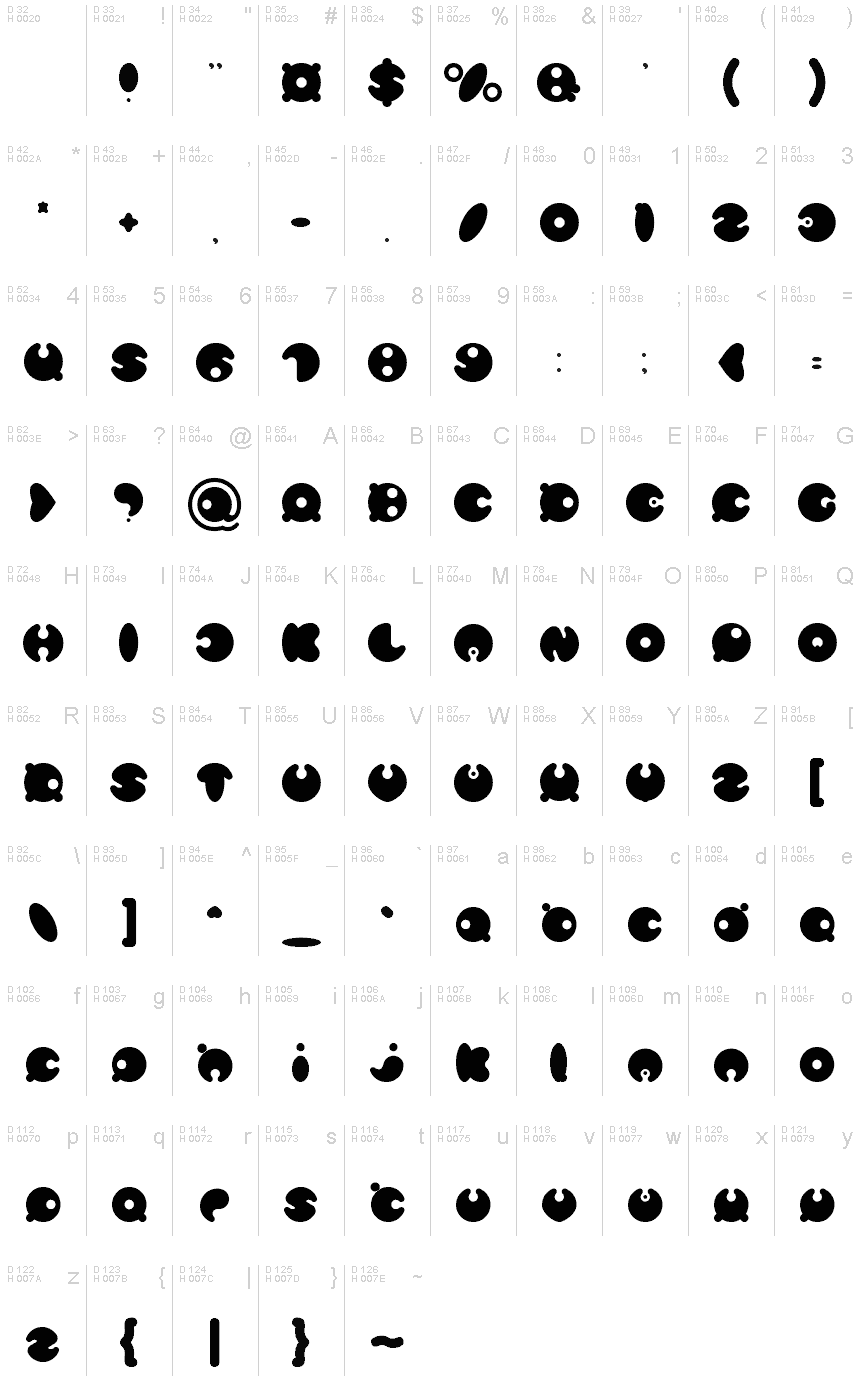
MASTER PANDA-Light
Master Panda Light is a playful and groovy display font that exudes a captivating blend of boldness and charm. Designed by Weknow, this font family boasts a distinctive character that seamlessly combines the whimsical essence of a panda with a modern, eye-catching aesthetic.
The bold weight and dynamic curves of Master Panda Light lend it a vibrant, attention-grabbing presence, making it an ideal choice for headlines, logo design, and eye-catching graphic elements. Its versatility shines through, allowing it to seamlessly integrate into a wide range of design contexts, from fashion and entertainment to branding and packaging.